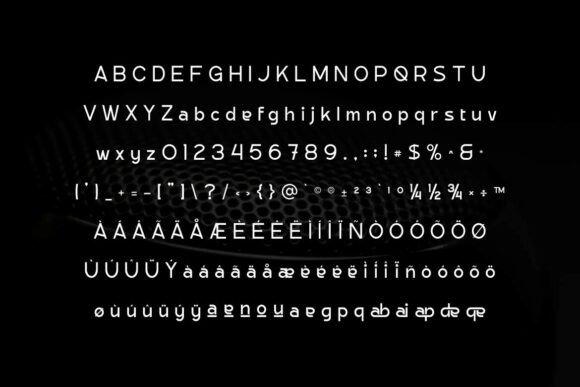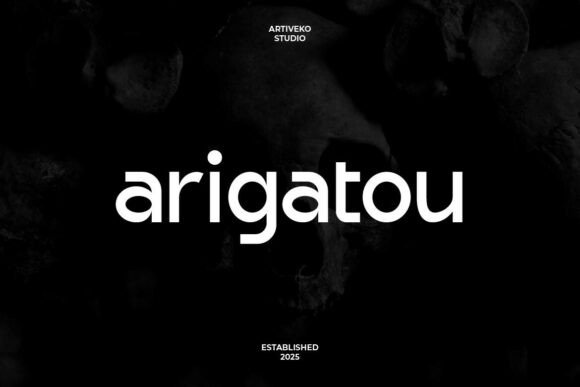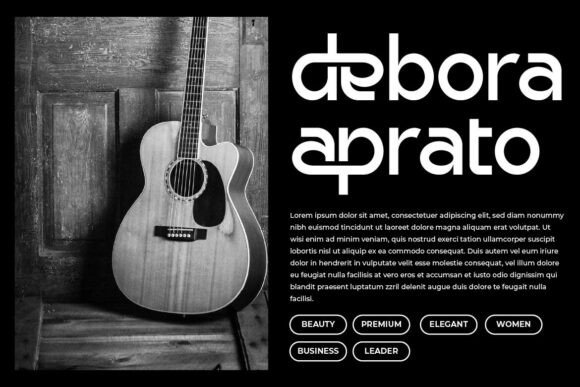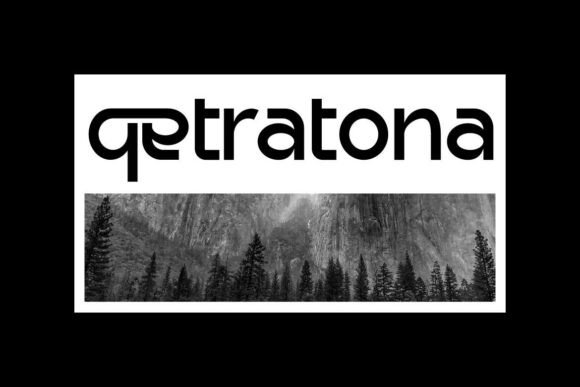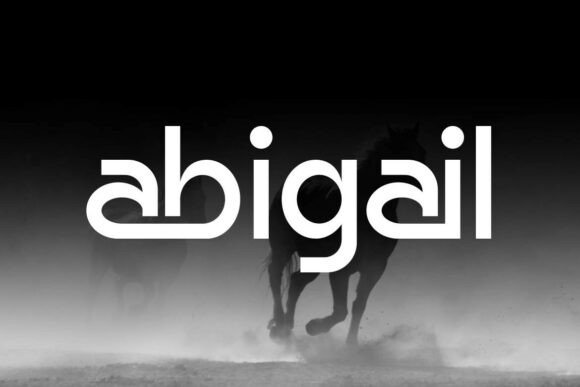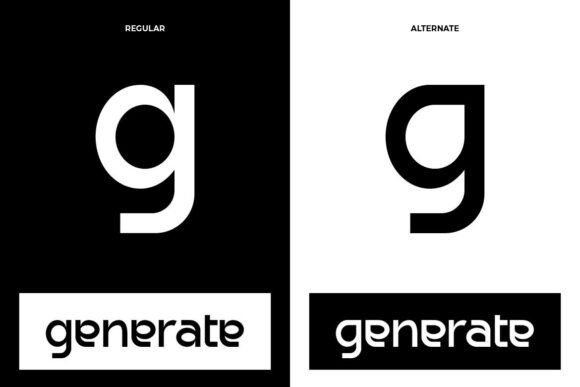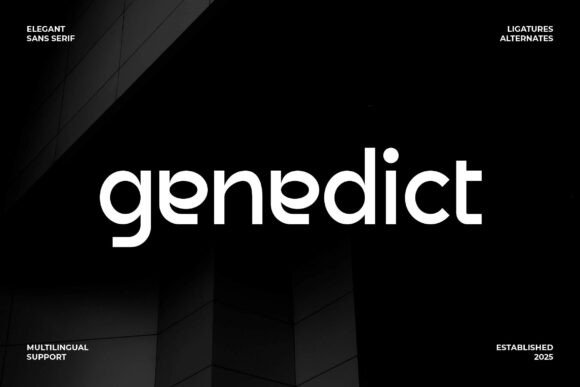
Introducing Genedict Font: Elevate Your Design with Modern Sophistication
In the world of typography, a well-crafted font can make all the difference in elevating your design to new heights. Genedict Font is a refined sans serif font that embodies modern sophistication and timeless versatility, making it the perfect addition to your typographic arsenal. With its clean lines, balanced geometry, and elegant proportions, Genedict delivers a premium look that is sure to impress.
The Design Philosophy Behind Genedict
Genedict’s design philosophy revolves around striking a delicate balance between modernity and classic elegance. The font’s clean lines and geometric shapes evoke a sense of contemporary sophistication, while its elegant proportions and balanced spacing ensure a timeless quality that will never go out of style. This harmonious blend of modern and classic elements makes Genedict an incredibly versatile font, suitable for a wide range of design applications.
Key Features of Genedict Font
- Clean Lines and Geometric Shapes: Genedict’s sans serif design features clean lines and geometric shapes, giving it a modern and sleek appearance.
- Balanced Geometry and Elegant Proportions: The font’s balanced geometry and elegant proportions ensure a premium look that is both sophisticated and refined.
- Timeless Versatility: Genedict’s design is carefully crafted to be timeless, making it suitable for a wide range of design applications, from branding and editorial layouts to corporate identities and luxury web design.
Use Cases for Genedict Font
Genedict’s versatility makes it an excellent choice for various design projects. Here are some use cases where Genedict truly shines:
- Branding: Genedict’s modern sophistication and premium look make it an ideal choice for branding projects, helping to establish a strong and lasting impression.
- Editorial Layouts: The font’s elegant proportions and balanced spacing make it perfect for editorial layouts, ensuring a smooth reading experience for your audience.
- Corporate Identities: Genedict’s professional and refined appearance makes it a great choice for corporate identities, helping to convey a sense of stability and trust.
- Packaging: The font’s clean lines and geometric shapes make it suitable for packaging design, adding a touch of modern sophistication to your product’s branding.
- Luxury Web Design: Genedict’s premium look and feel make it an excellent choice for luxury web design projects, helping to create a sophisticated and high-end user experience.
Why Choose Genedict Font?
With so many fonts available, why choose Genedict? Here are a few compelling reasons:
- Unique Blend of Modernity and Elegance: Genedict’s design philosophy offers a unique blend of modern sophistication and timeless elegance, making it a standout choice for designers.
- High Versatility: The font’s versatility ensures it can be used across various design applications, making it a valuable addition to your typographic arsenal.
- Premium Look and Feel: Genedict’s clean lines, balanced geometry, and elegant proportions deliver a premium look and feel that is sure to impress.
In conclusion, Genedict Font is a refined sans serif font that offers a perfect blend of modern sophistication and timeless versatility. With its clean lines, balanced geometry, and elegant proportions, Genedict delivers a premium look that is sure to elevate your design to new heights. Whether you’re working on branding, editorial layouts, corporate identities, packaging, or luxury web design, Genedict is an excellent choice for designers and crafters looking to add a touch of sophistication and elegance to their projects.